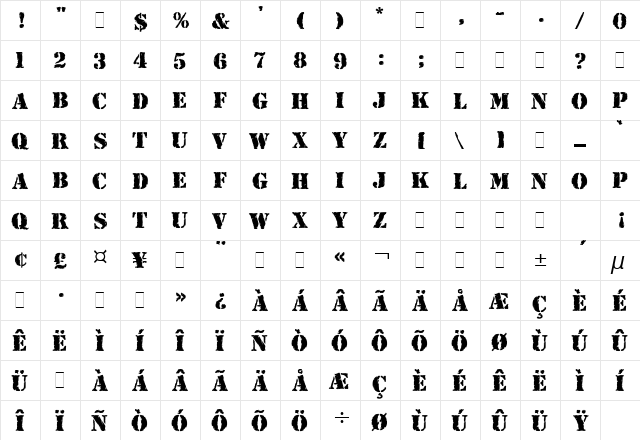
Rubber Stamp LET Plain
Rubber Stamp LET borrows the utilitarian aesthetic of stencil lettering, with its characteristic cutaways and no-frills construction lending an industrial edge.
A strong choice for packaging that needs edge, warehouse aesthetics, and rough-and-ready visual identities.
Pro Tip: Use Rubber Stamp LET at large sizes on packaging, posters, or apparel where the stencil cutaways read clearly. Avoid small sizes where those gaps become visual noise.